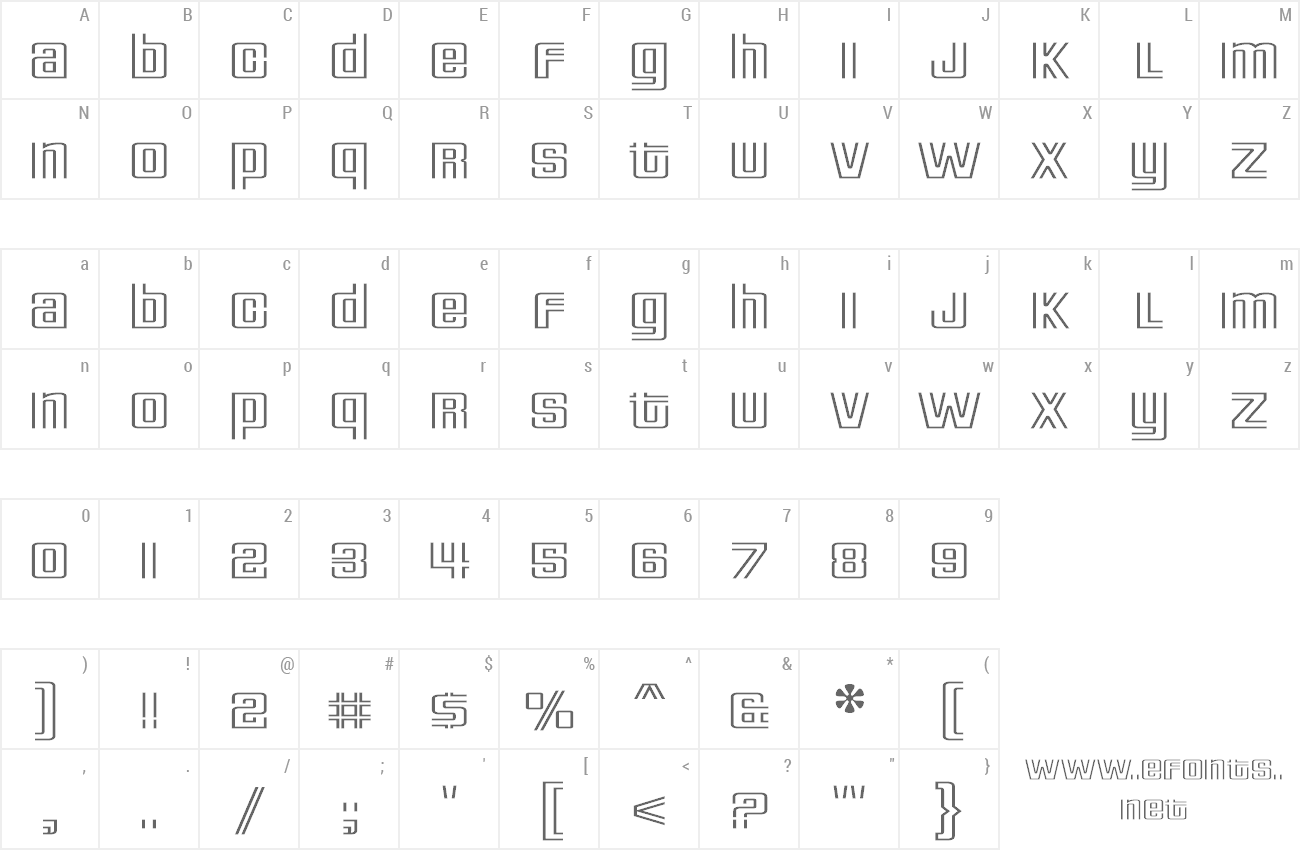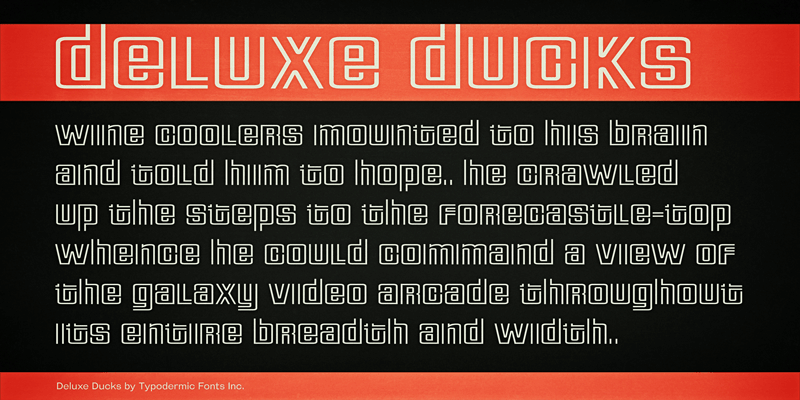
Preview and download Deluxe Ducks Font. Created by Typodermic Fonts in Fancy Groovy styles with 100% Free license.
Deluxe Ducks is a striped, 1970’s inspired display font. This font includes a license that allows free commercial use: sometimes referred to as a desktop license. This allows you to install the font on a computer and use it to create posters, web graphics, game graphics, t-shirts, videos, signs, logos and more. Read the license agreement for details. If you'd like to embed this font in an app, ebook, on the web or anything that's not covered by the desktop license agreement, visit the link below. You'll find distributors who offer different types of licenses or you can contact me for help. http://typodermicfonts.com/deluxe-ducks/ |